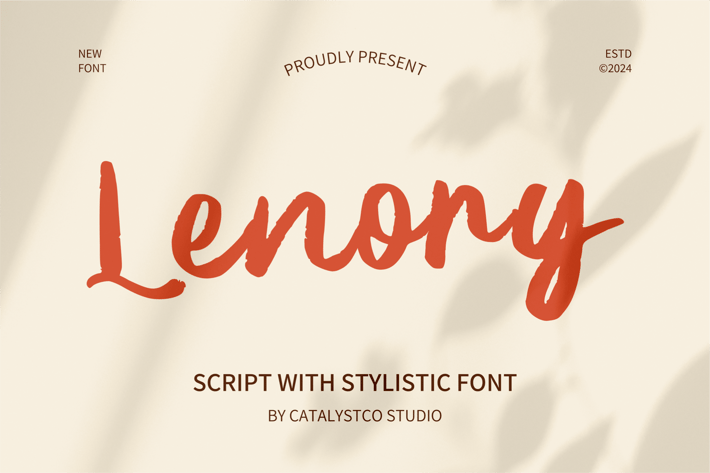
Lenory Script Font
Lenony is a modern handwritten brush script font that blends natural strokes with elegant, expressive movement. Its organic letterforms create an authentic handwritten feel, perfect for editorial styling, branding, and feminine visual identity. Designed with smooth curves and subtle texture variations, Lenony delivers a sophisticated balance between casual handwriting and premium signature aesthetics. Ideal for projects that require a stylish, personal, and refined script touch.
Lenony is suitable for branding identity, wedding invitations, feminine logo designs, signature-style logotypes, product packaging, social media graphics, beauty branding, lifestyle quotes, editorial layouts, boutique promotions, modern stationery, and any creative project that requires an elegant handwritten script with a premium, personal touch.